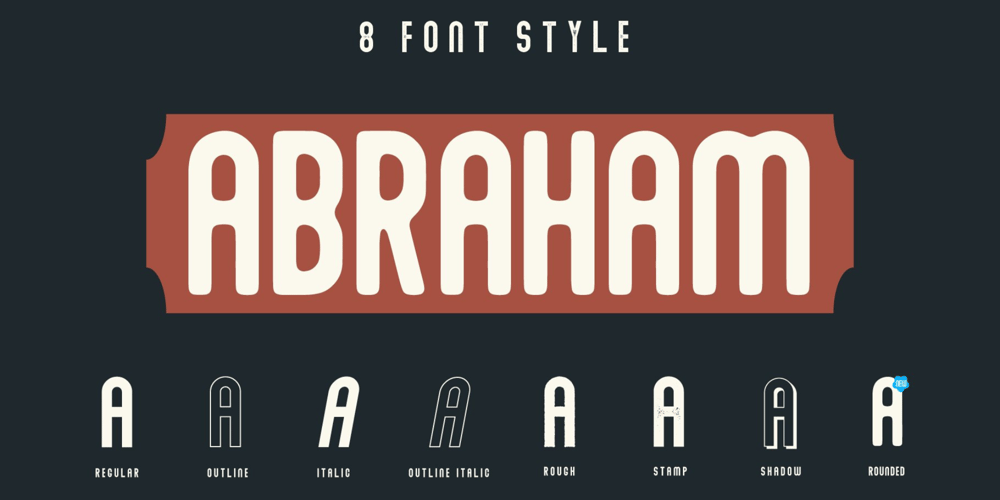
Abraham
Abraham font
Abraham Font Family was designed by Irpan Maulana and published by Sabrcreative. Abraham contains 8 styles and family package options. Discover the versatile and stylish Abraham Font Family at MyFont. With 8 unique styles, including Regular, Italic, Rough, Stamp, Shadow, Outline, and Rounded, this modern sans-serif modular family offers endless creative possibilities. Perfect for a wide range of design projects, Abraham is suitable for logos, greeting cards, quotes, posters, branding, business cards, stationary, blog headers, and more.Each style of the Abraham Font Family features both uppercase and lowercase letters, ensuring flexibility in your designs. Additionally, it includes stylistic alternates, standard ligatures, and numerals & punctuations in OpenType format for seamless typography.Enhance your artwork with the multilingual support of the Abraham Font Family, which includes a wide range of accents and characters to accommodate various languages. The font family is PUA encoded, allowing for easy access and usage across different platforms and software.With the Abraham Font Family, you’ll receive the following fonts: Abraham Regular, Abraham Regular Italic, Abraham Outline, Abraham Outline Italic, Abraham Rough, Abraham Stamp, Abraham Shadow, and Abraham Rounded. Whether you’re designing greeting cards, package designs, brand identities, or art projects, Abraham Font Family will add a touch of sophistication and creativity to your work.